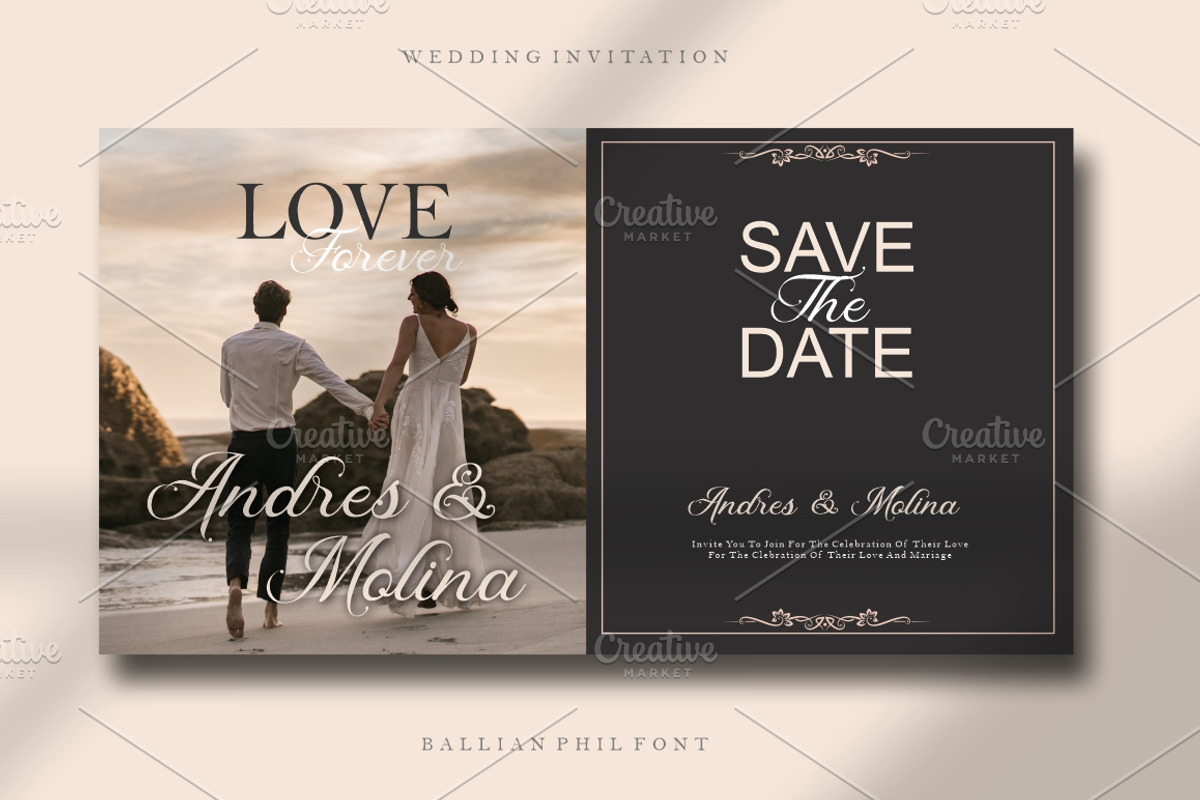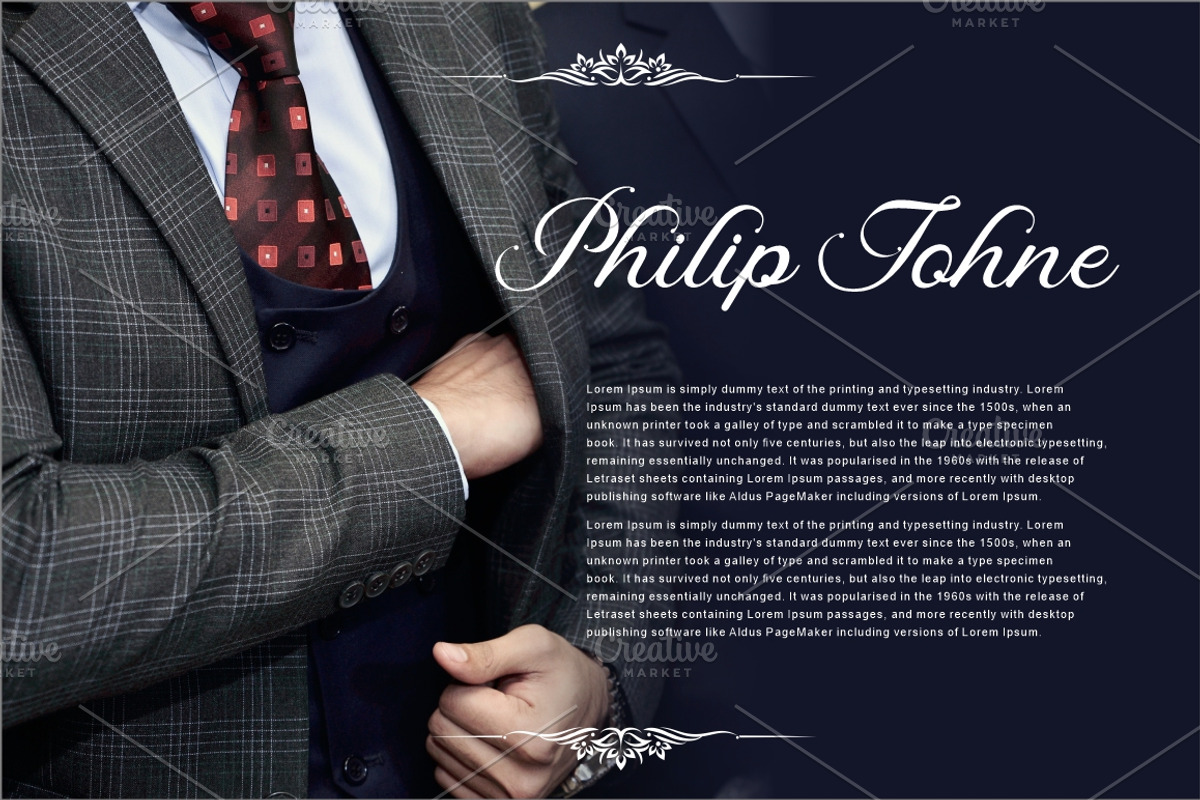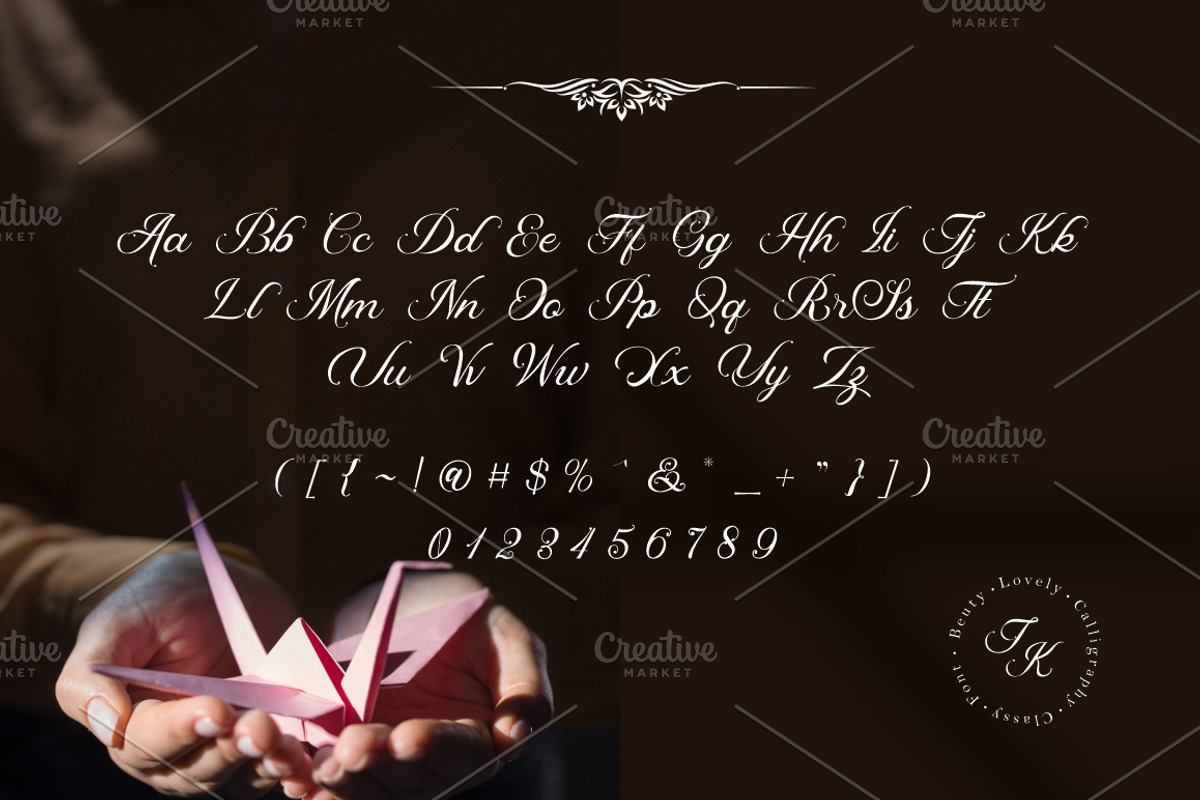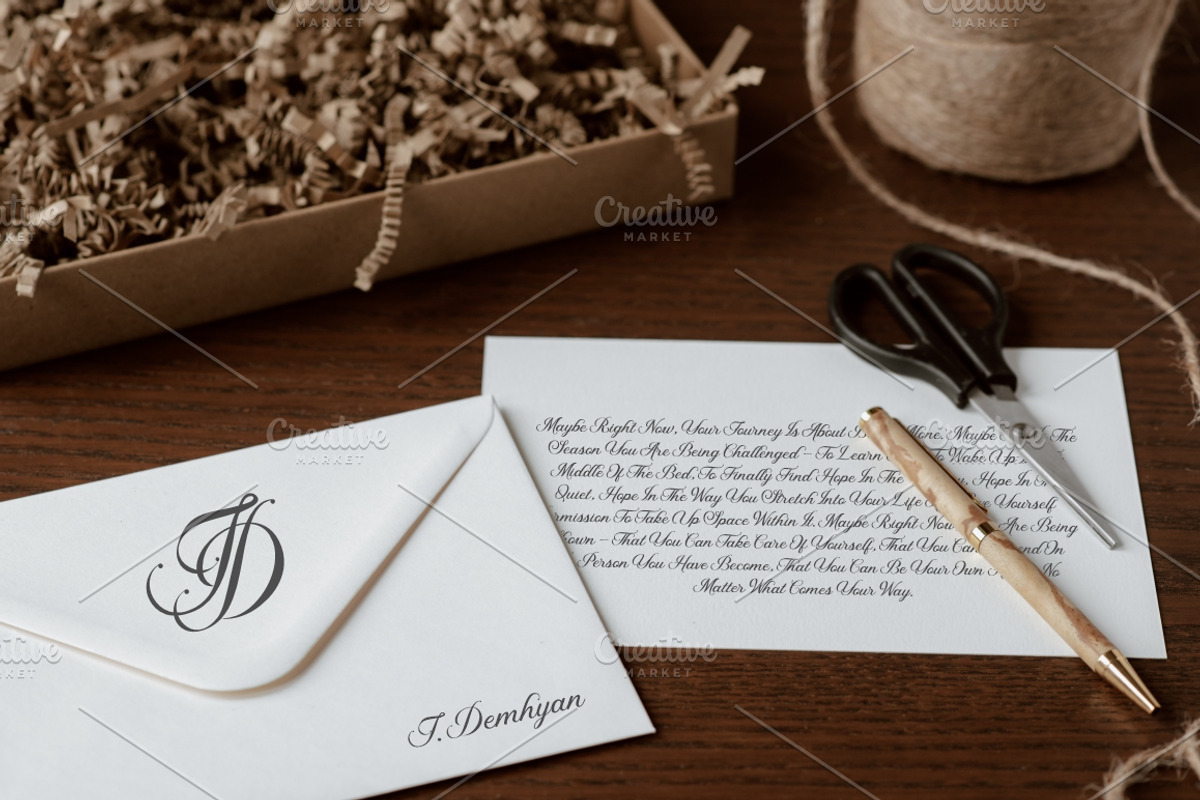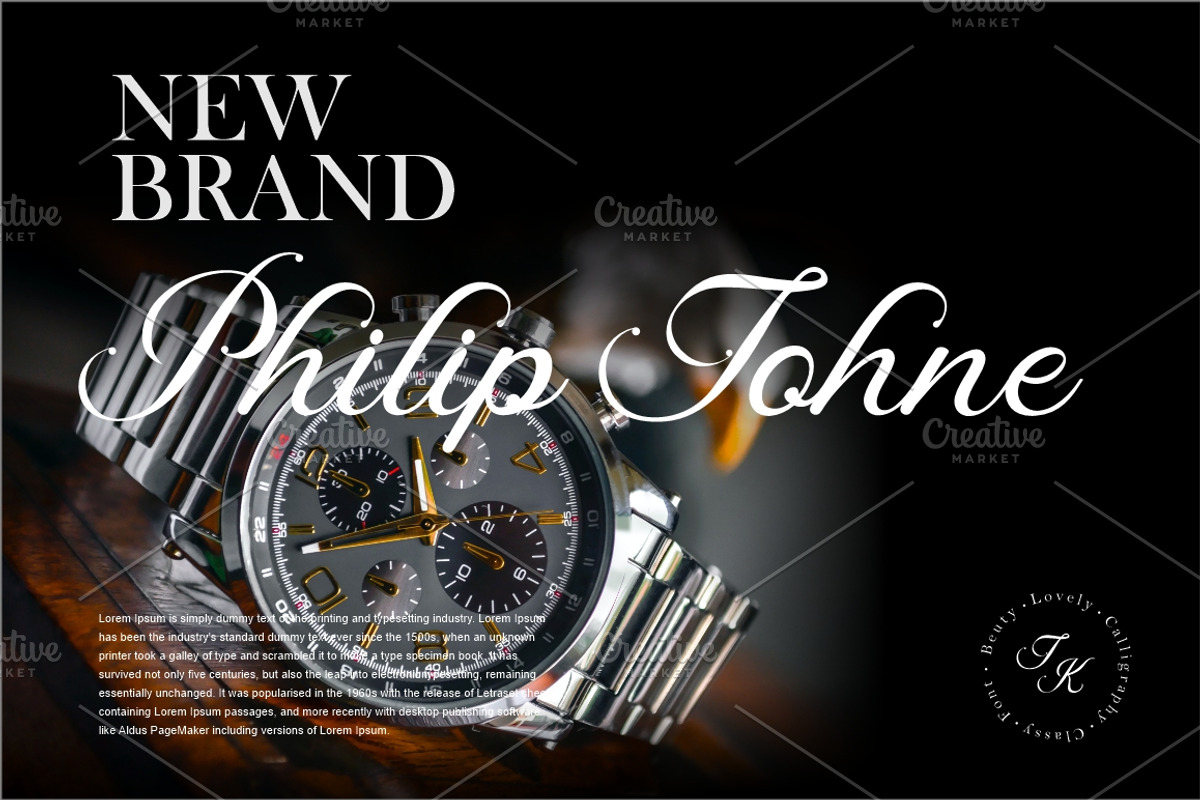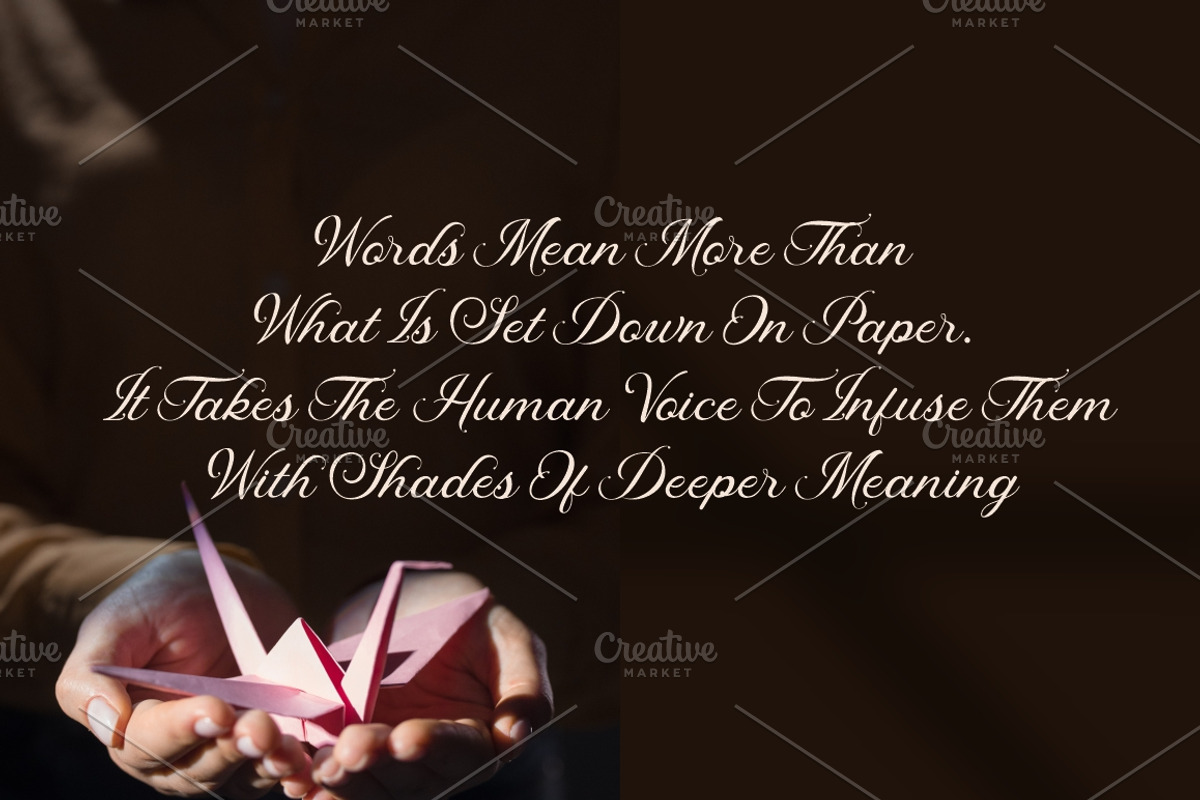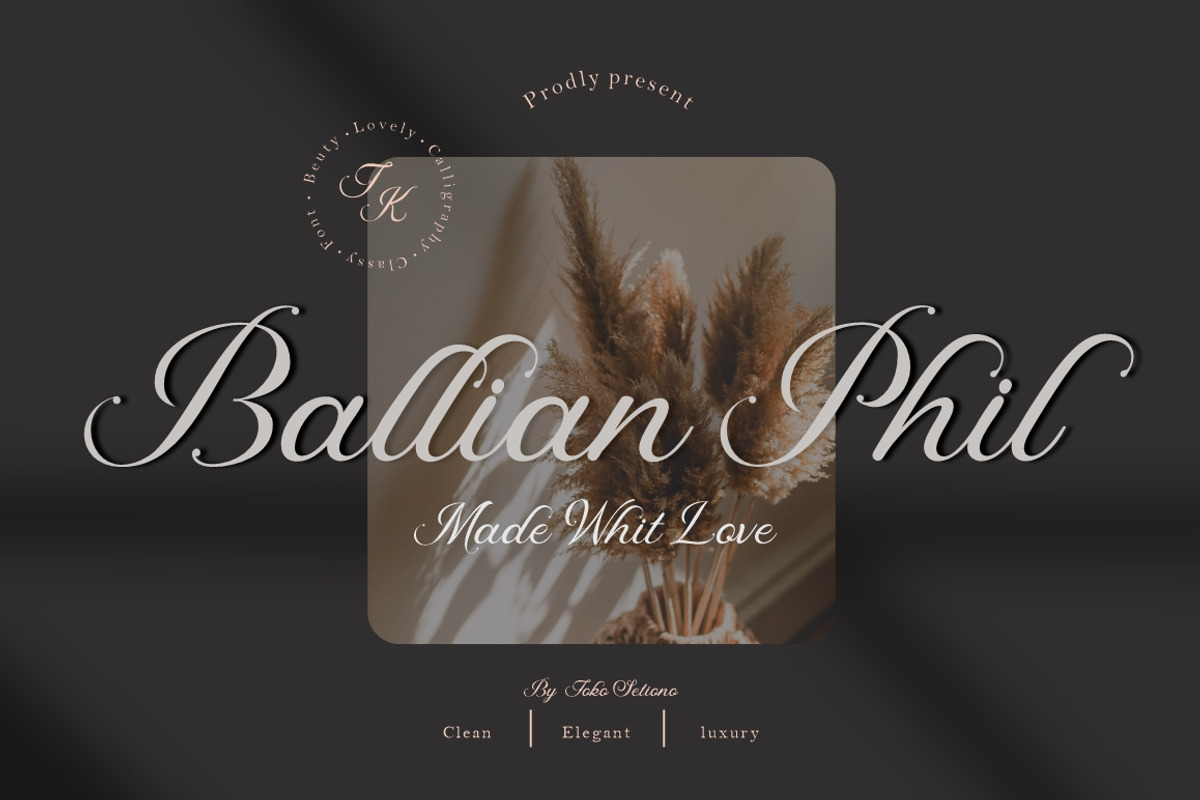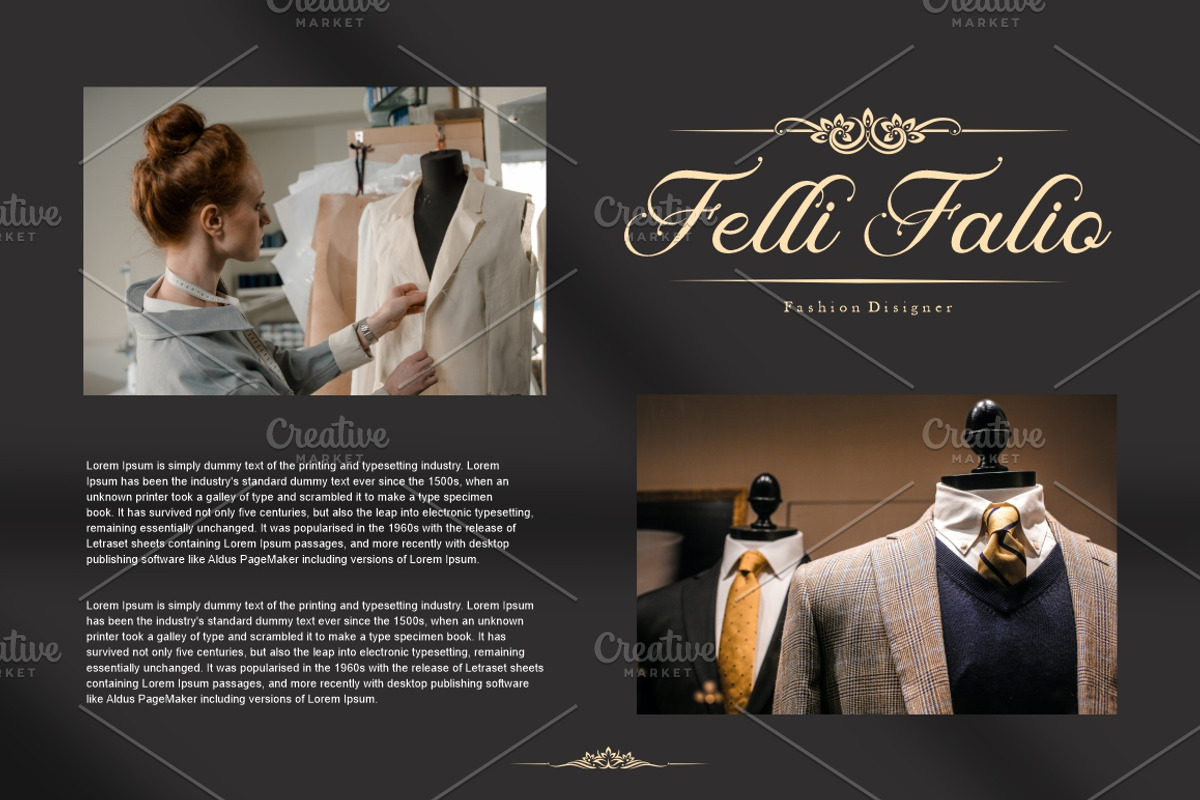
Ballian Phil Luxury Script Font
Ballian Phill is a Luxurious Script Font, inspired by noble handwriting with neat curves that will accentuate luxury in your designs.
Ballian Phill is suitable for your signature, jewelry brand, logo, invitation card.